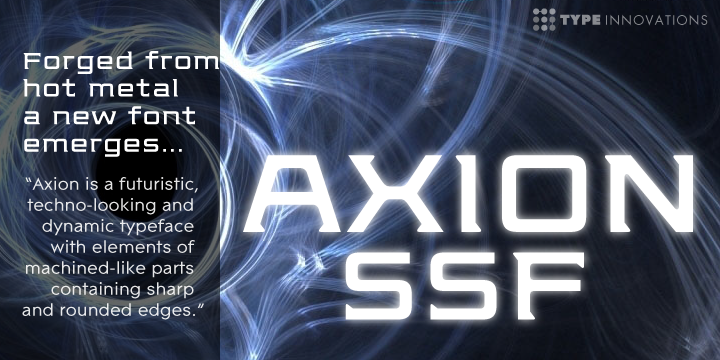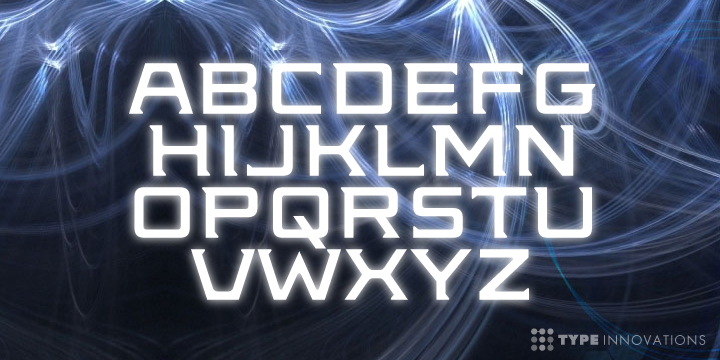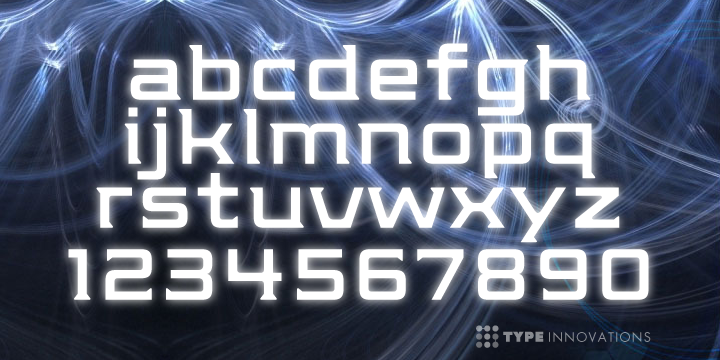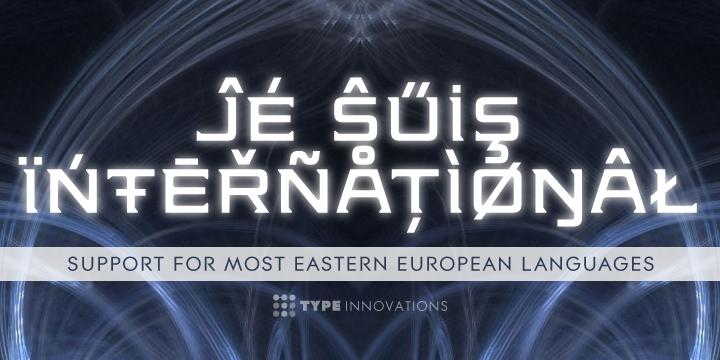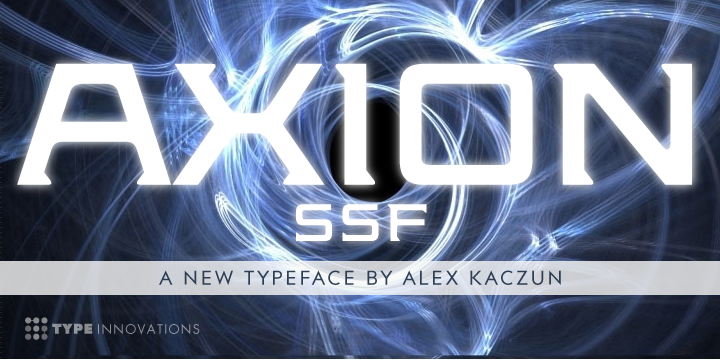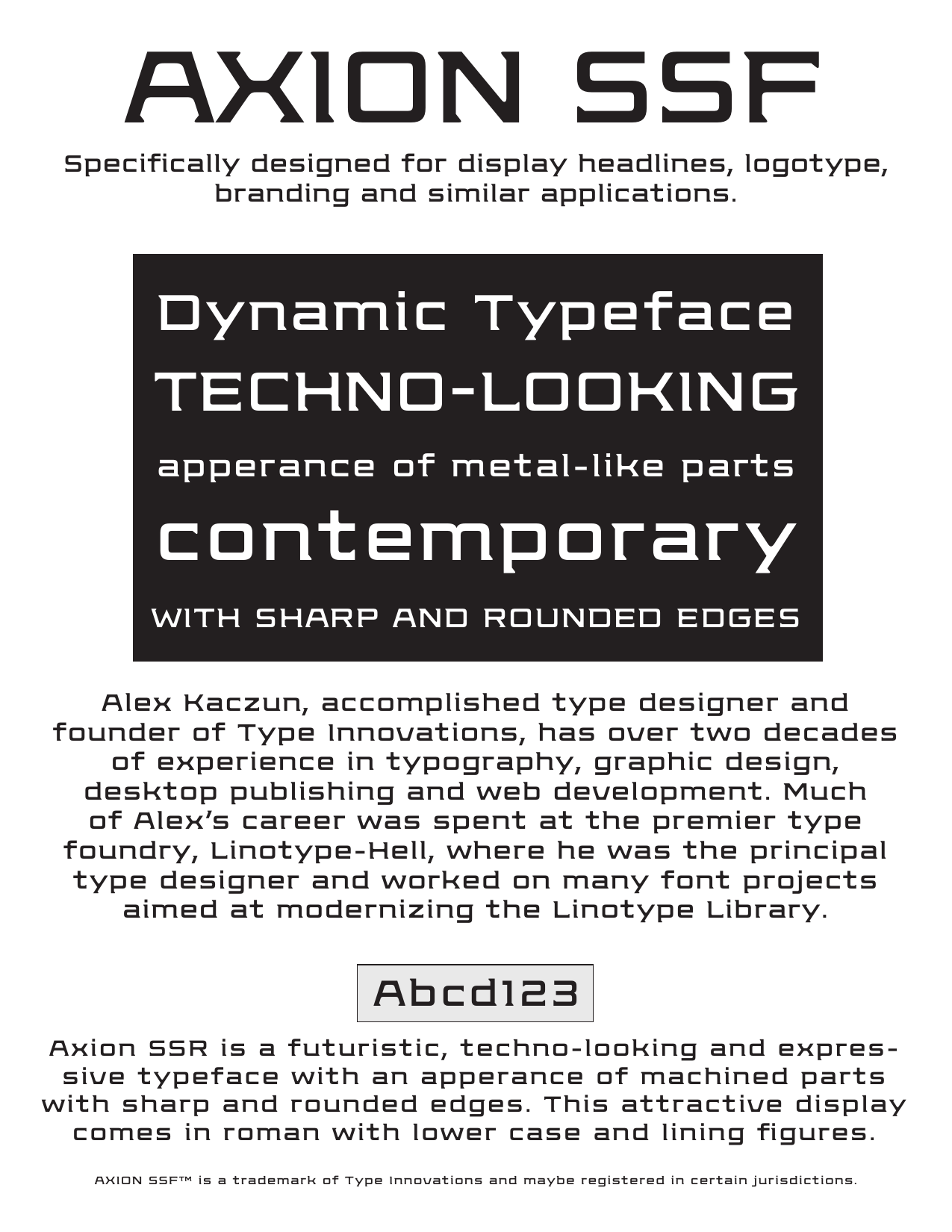
Axion SSF
Axion SSF is an original design by Alex Kaczun. Axion SSF is a style variation based on his original Axion typeface family of fonts. It is a display font not intended for text use. It was designed specifically for display headlines, logotype, branding and similar applications. The entire font has an original look which is strong, dynamic, machine generated and can be widely used in publications and advertising. Axion SSF is a futuristic, techno-looking and expressive typeface with an appearance of machined parts with sharp and rounded edges. This attractive display comes in roman with lower case and lining figures. The large Pro font character set supports most Central European and many Eastern European languages.